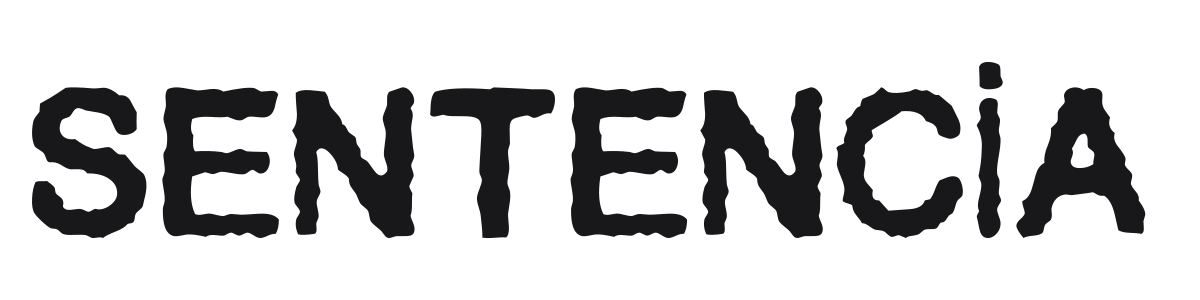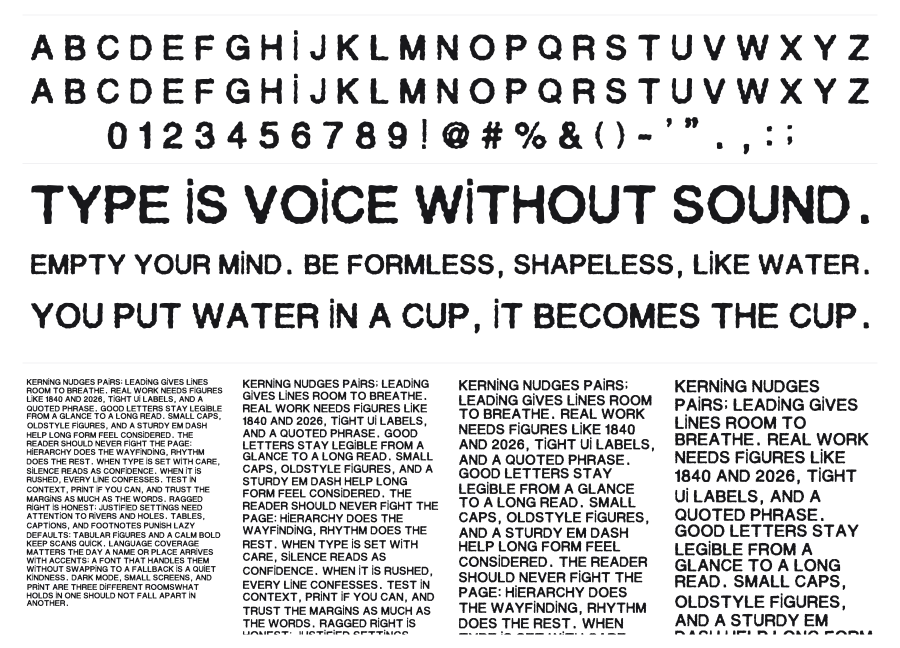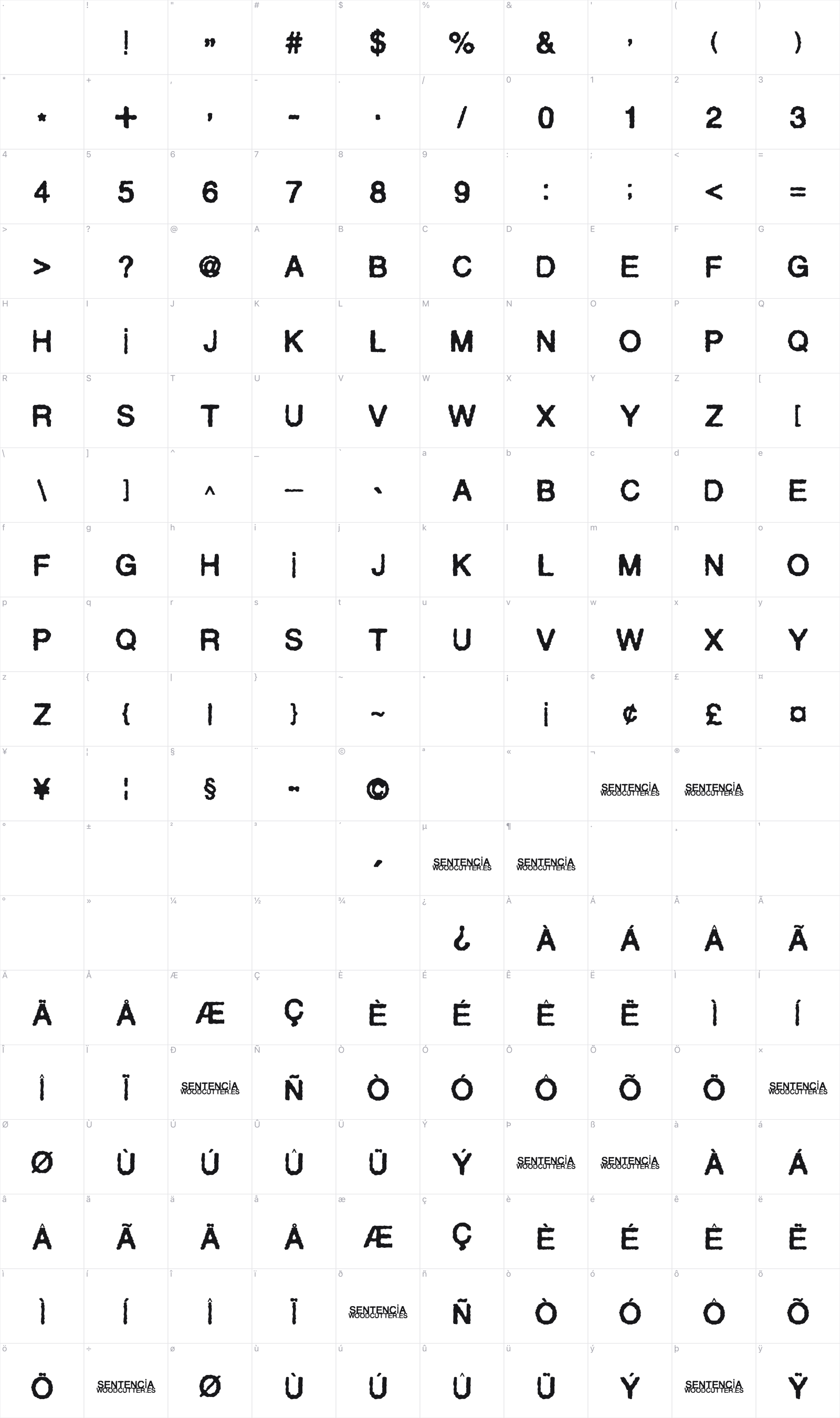
Sentencia
Sentencia is a bold distressed sans with a heavy, roughened texture that looks like it was stamped with a worn block and never cleaned up. Every stroke carries irregular erosion and bite marks, making the weight feel physical and raw. It belongs on gig posters, band merchandise, and anything that needs an edge.